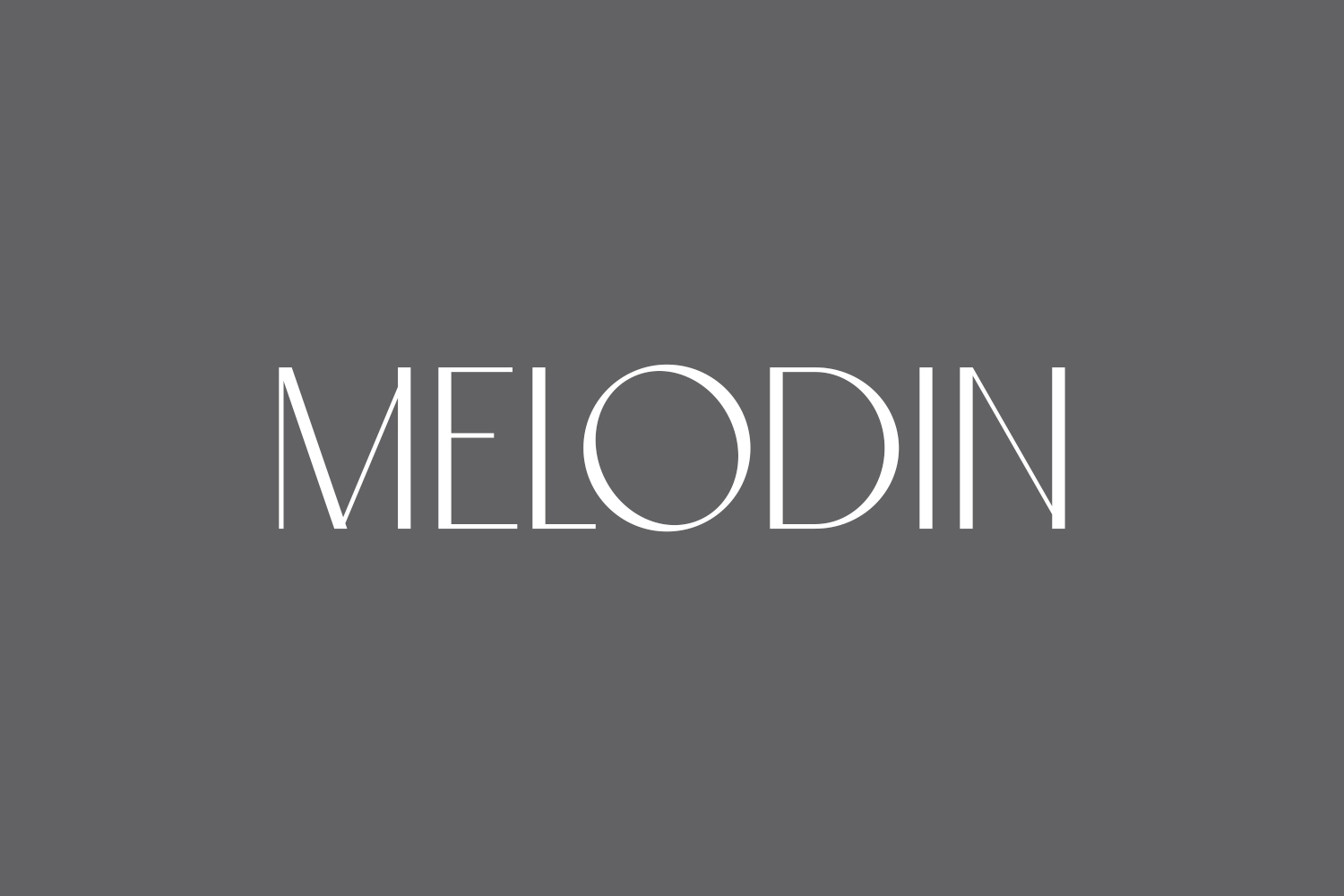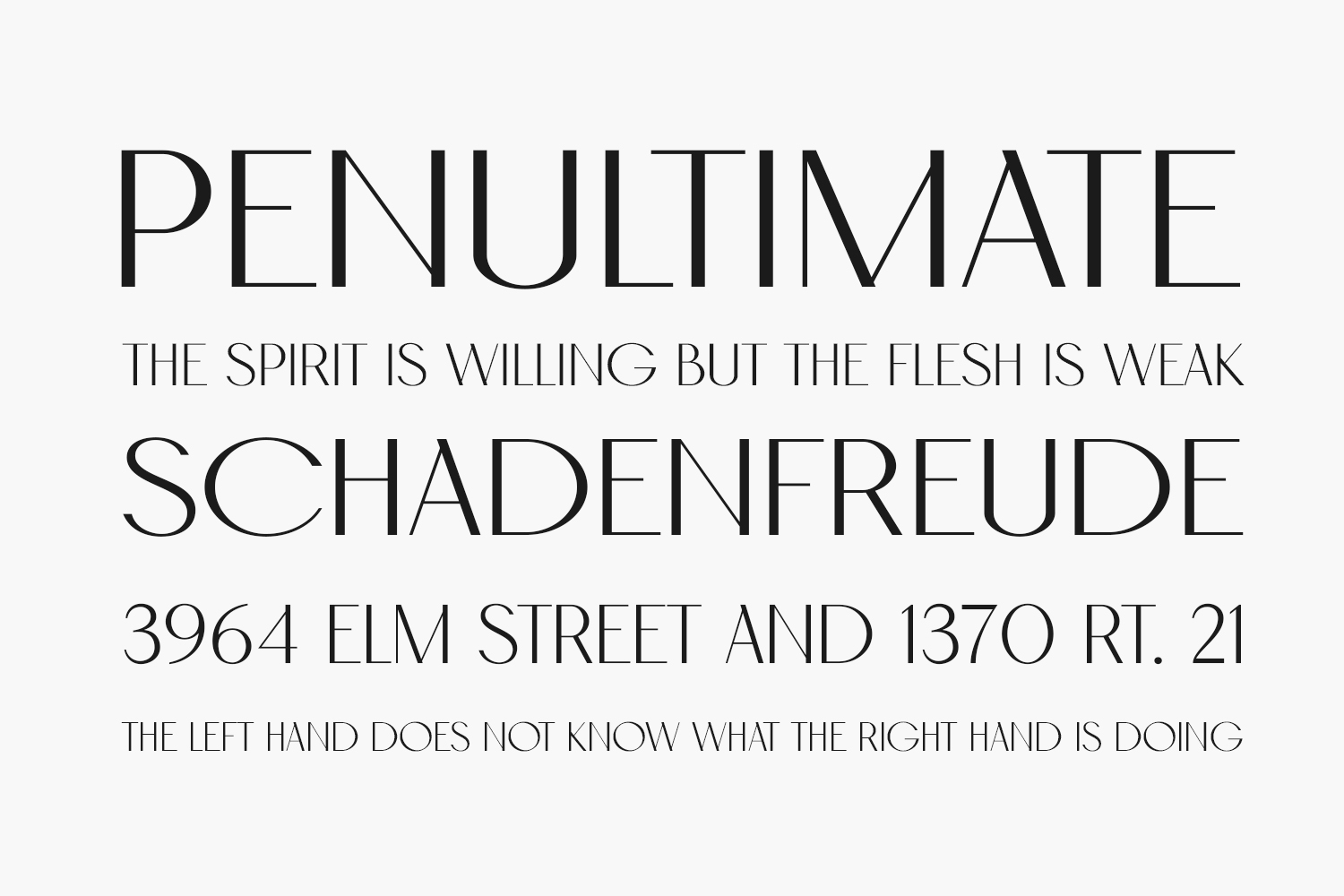
Discover Melodin Free Font, a refined and enchanting sans serif font infused with contemporary flair. Tailor-made for luxury and elegance, Melodin exudes sophistication, making it ideal for upscale, feminine projects. Elevate your designs with its chic and modern aesthetic, setting the stage for unparalleled style and allure. Download the font for free if you need it for personal use or purchase the full version for commercial use.
Designed by BrandSemut